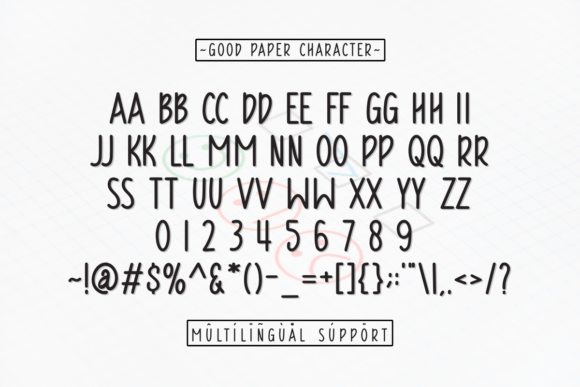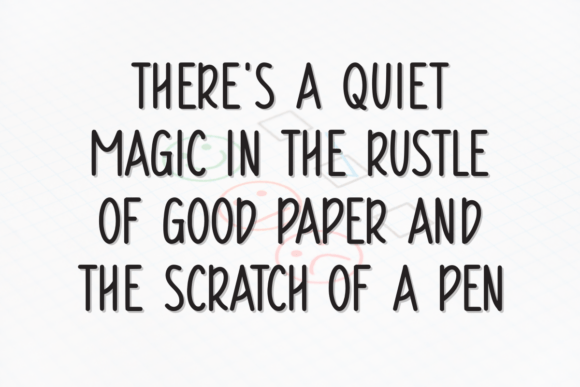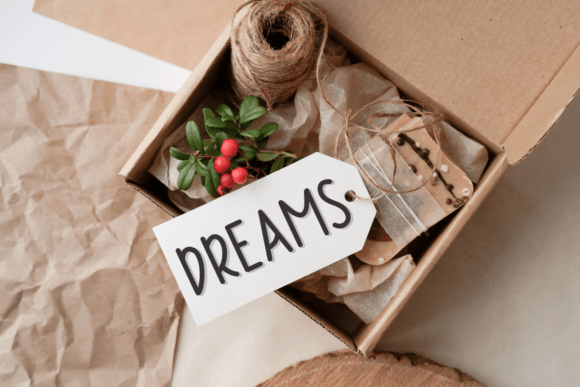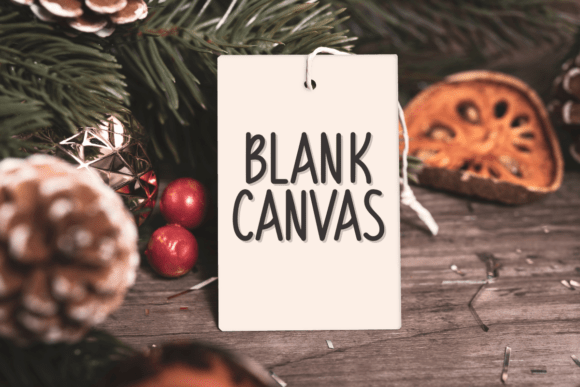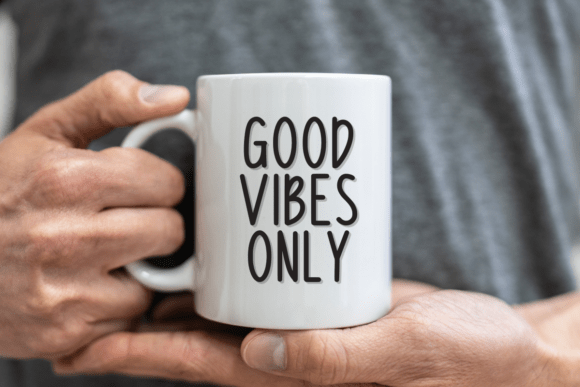
Introduction to Good Paper Font
Do you remember that moment when you finally found the perfect font to match your creative vision? For many of us, it’s a moment of pure joy and excitement. Whether you’re designing a new T-shirt, creating a set of stickers, or planning a special event, the right font can make all the difference. And that’s exactly why we’re excited to introduce you to the Good Paper Font – a charming sans serif font designed specifically for crafters, Cricut users, and creative business owners.
As a valuable design resource, the Good Paper Font is perfect for a wide range of creative projects, from KDP interiors to invitations and planners. With its high-quality design and transparent background, you can trust that your projects will look professional and polished. And the best part? This fantastic font is available as a free download, making it an instant favorite among designers and crafters alike.
Key Features of Good Paper Font
- High-quality, professional font design suitable for various creative projects, including print materials and digital designs.
- Supports a wide range of languages, making it a versatile font for international creative projects.
Honest Review: Good Paper Font
As a designer, I’m always on the lookout for high-quality design resources to enhance my creative projects. Recently, I stumbled upon the Good Paper Font, and I must say it’s a great addition to my design arsenal.
- ✨ The transparent background allows for seamless integration with various design elements, giving me more creative freedom.
- ✨ The font is well-designed, with a clean and modern aesthetic that’s perfect for a wide range of creative projects.
- ⚠️ The font may not be suitable for projects requiring a bold, eye-catching font. It’s more suited for subtle, elegant designs.
- ⚠️ The font is limited to a few styles, which may not be sufficient for designers who need a wide range of options.
Overall, I’m impressed with the Good Paper Font. While it may have some limitations, its high quality and free download make it a valuable resource for designers working on creative projects. I would definitely recommend it to anyone looking for a clean and modern font.
Good Paper Font
The Good Paper Font is a versatile and high-quality design resource perfect for creative projects. Its transparent background makes it easy to use in various design applications.
Tips for Getting the Most Out of Good Paper Font
To get the most out of Good Paper Font, experiment with different font sizes, colors, and combinations to create unique designs. You can also pair Good Paper Font with other design elements, such as images and graphics, to enhance your creative project.
Common Use Cases for Good Paper Font
Good Paper Font is commonly used for creating invitations, greeting cards, and other paper-based designs. Its high-quality design makes it perfect for crafting and scrapbooking projects.